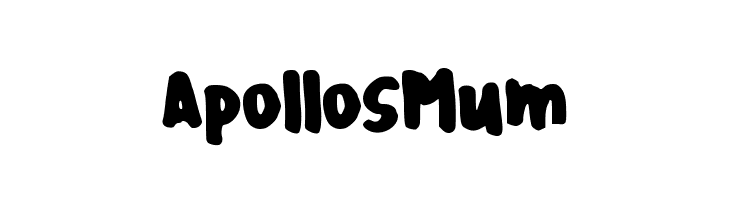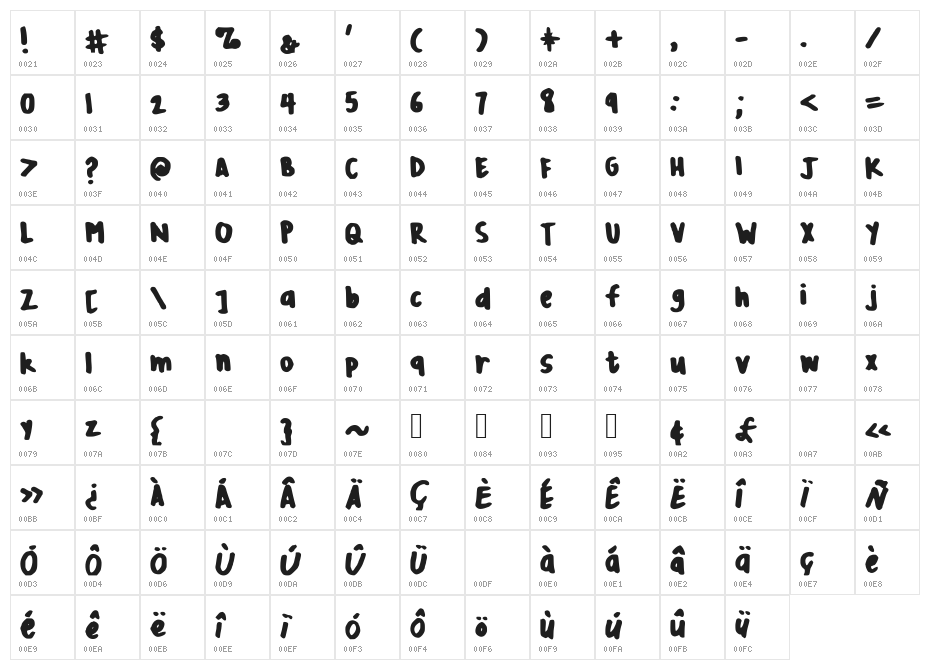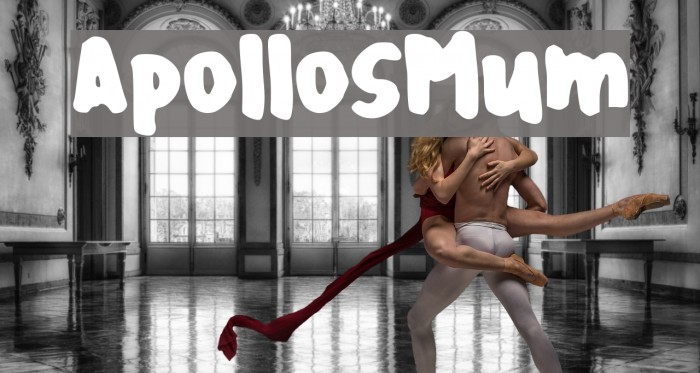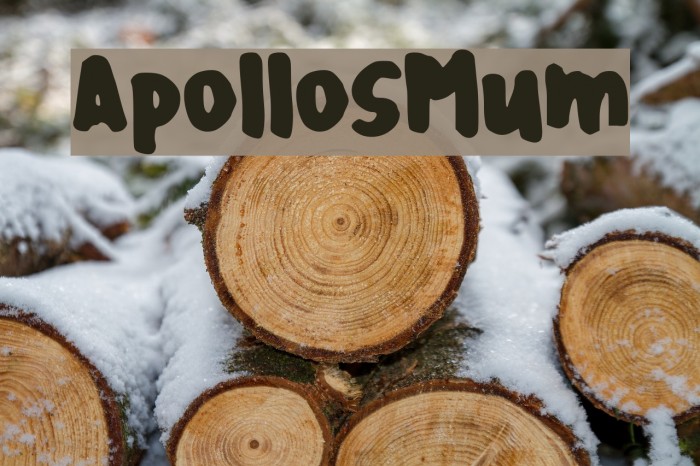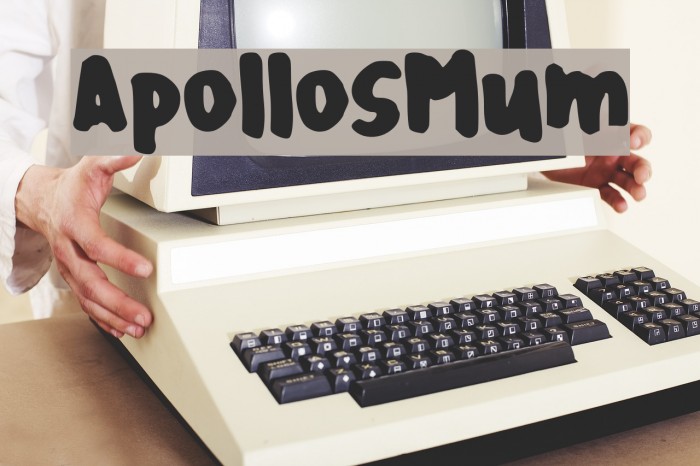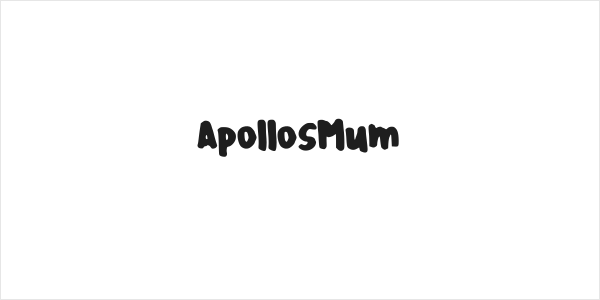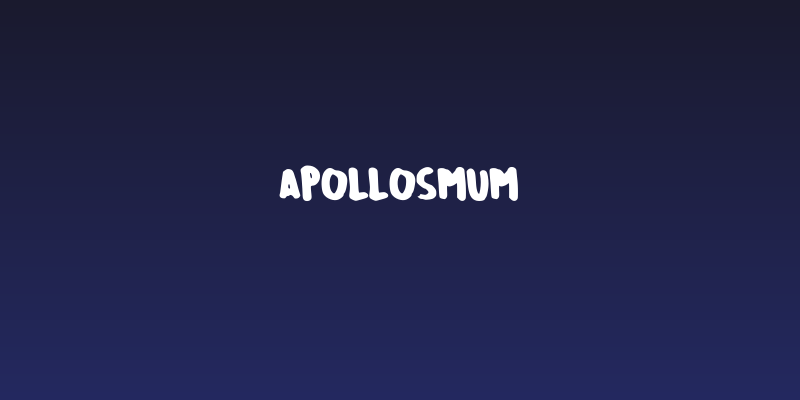
ApollosMum Font
ApollosMum Description
This font features a bold and playful handwritten style, characterized by its thick strokes and rounded edges. The letters have an informal and friendly appearance, making them suitable for casual and creative projects. The uppercase and lowercase letters maintain a consistent weight, providing a cohesive look across the alphabet. Numbers and special characters are designed with the same playful aesthetic, ensuring uniformity throughout. The font's overall style is approachable and lively, with a touch of whimsy that adds character to any design.